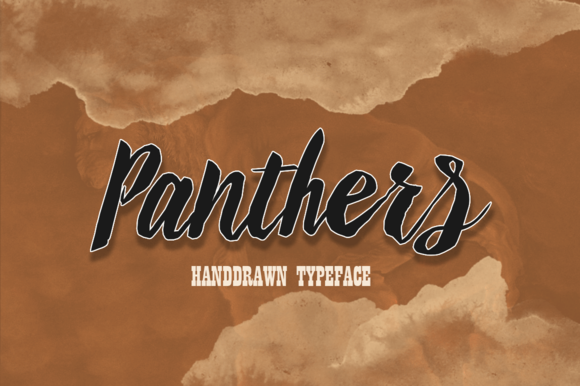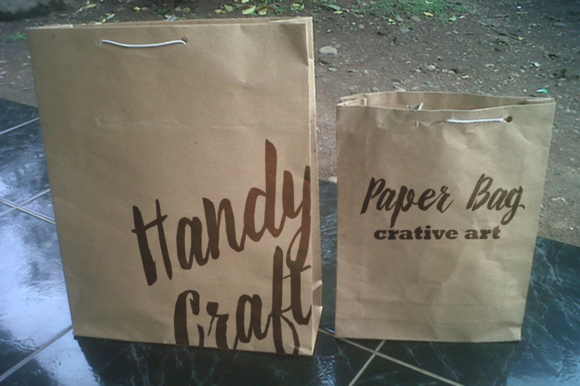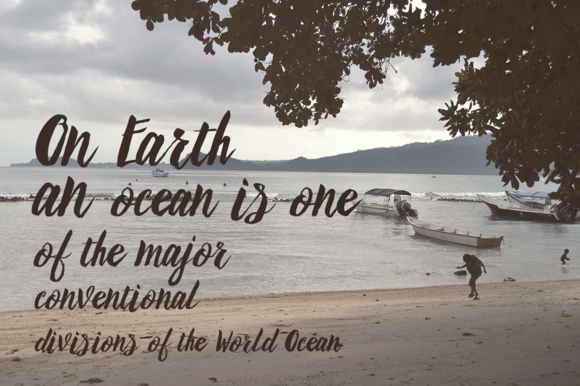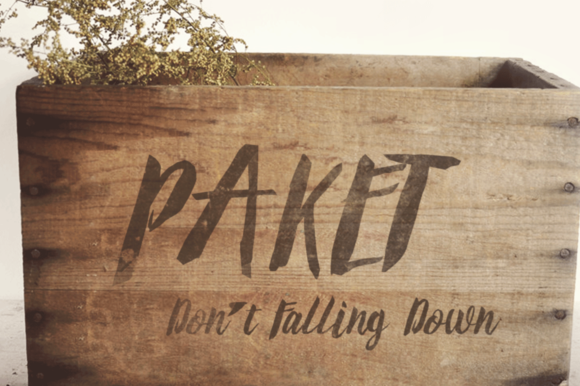
About Panthers Font
Panthers is a hand-drawn or hand-inked script font with a fun, imperfect baseline. It’s nice and bold plus a little gritty – Perfect for creating organic, fluid typography on products, branding, headings, logos, invitations, t-shirt designs, greeting cards, posters, labels, book covers, brochures, and much more!